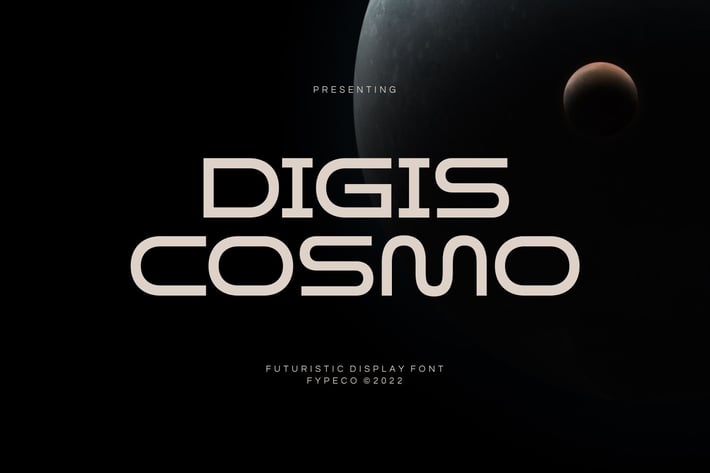
Digis Cosmo - Futuristic Display Font
FypeCo
Digis Cosmo is a futuristic font inspired by science fiction movies and books. Minimalistic and modernis the main style for this typeface. This font is suitable for various purpose such as movies, posters, logos, labels, and any modern purposes.
Font Features
- Alternatives